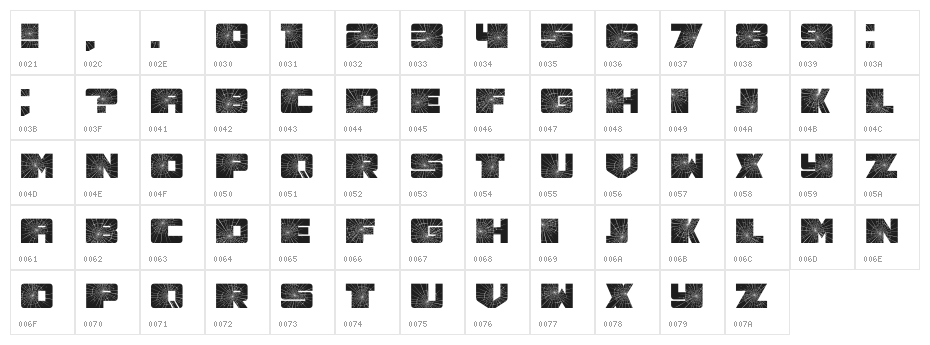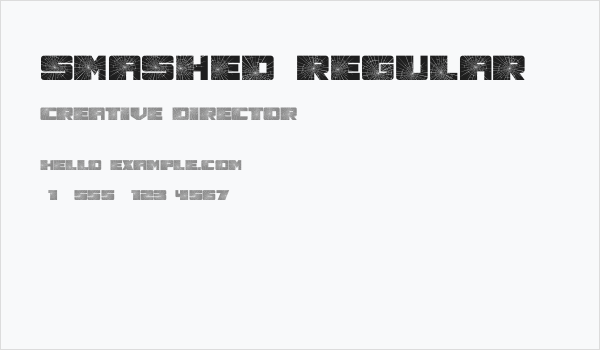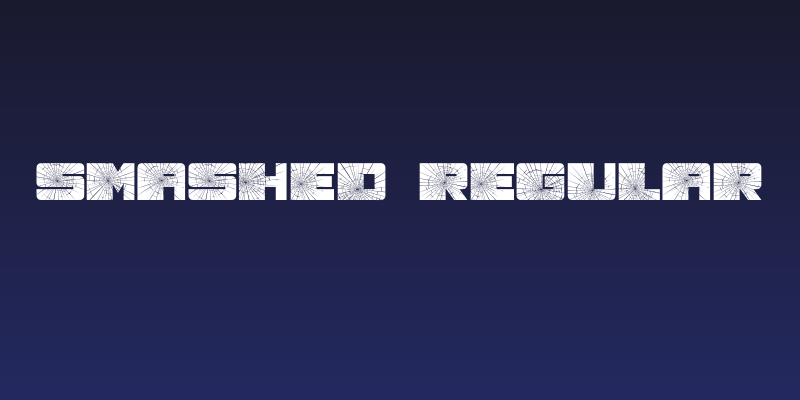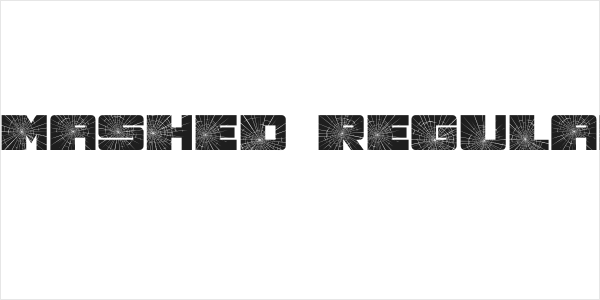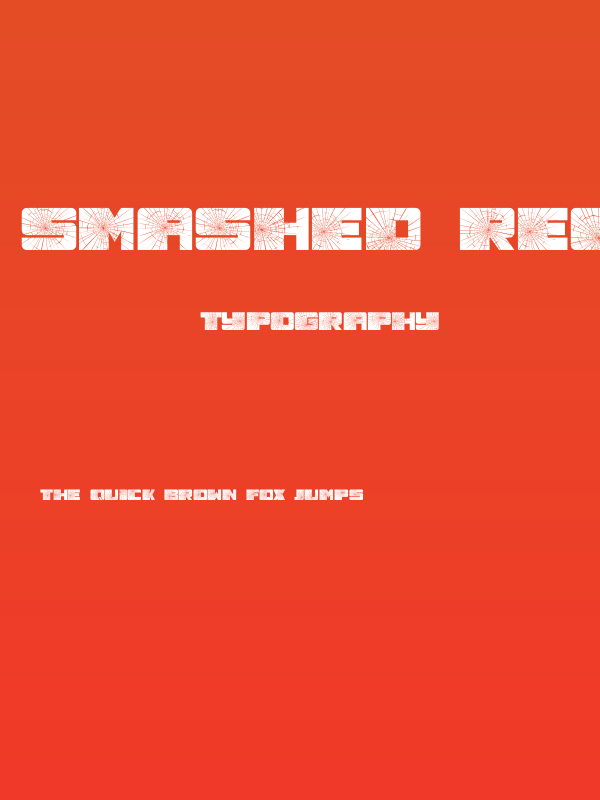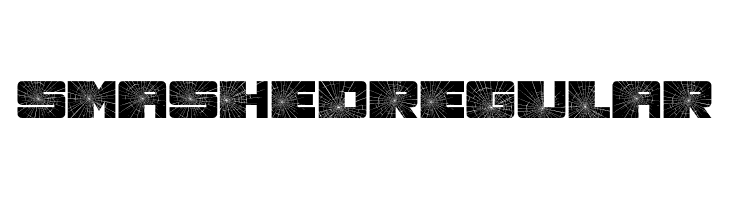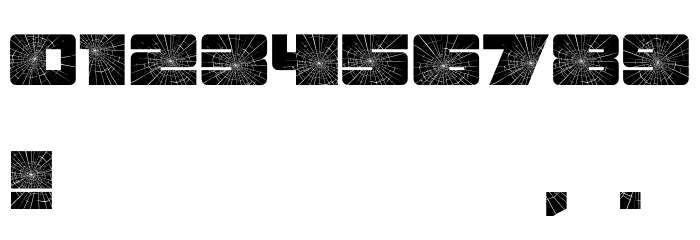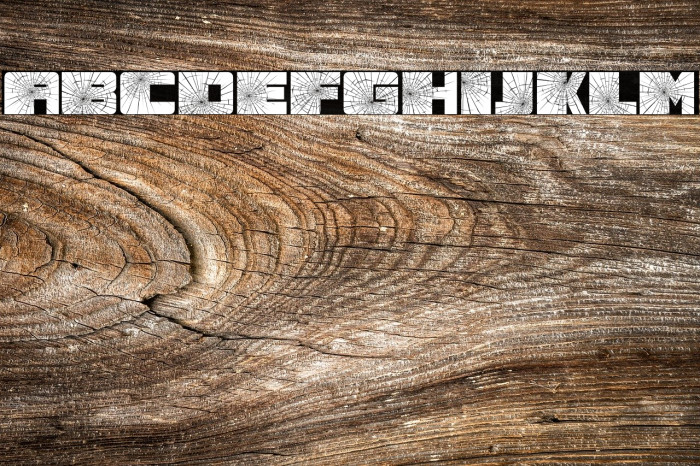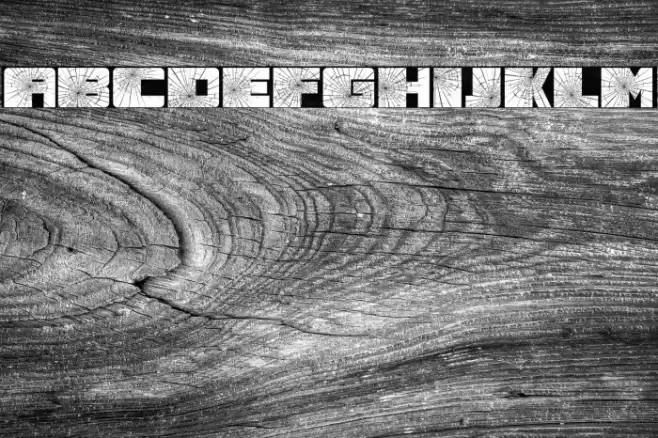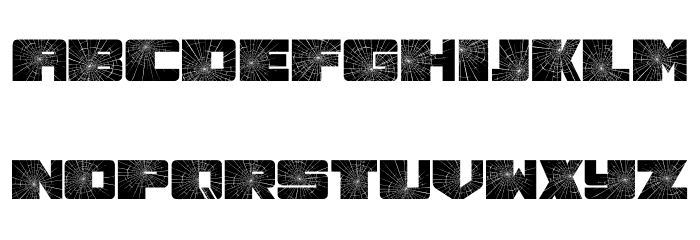
Smashed Regular Font
Smashed Regular Description
This font features a bold, impactful design with a shattered glass effect within each character. The letters are uppercase and have a blocky, geometric structure, giving them a strong presence. The shattered effect adds a dynamic and edgy feel, making it suitable for attention-grabbing designs. The numbers and special characters follow the same style, ensuring consistency across all elements. This font is ideal for projects that require a bold statement or a modern, unconventional look.
| Proposed Projects | Ideal for posters, album covers, video game titles, and any design needing a bold, edgy statement. |